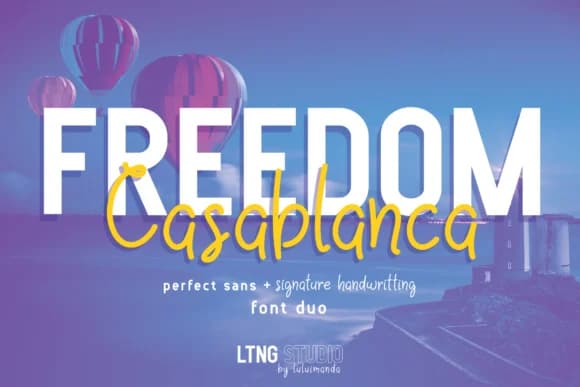
Freedom Casablanca by LTNG is a handwritten script font that brings organic, flowing letterforms to any creative project. With multiple weights and styles including Regular, Bold, Italic, and Doodles options, this versatile typeface adapts seamlessly across different applications and design contexts. The family is designed to work as individual fonts while also creating beautiful combinations when layered together, giving designers flexibility in how they approach their work.
The font excels in wedding invitation suites where its natural hand-drawn aesthetic adds genuine elegance and romance. It works equally well for Etsy product labels and specialty packaging that need personality, charm, and the handmade quality that appeals to modern consumers seeking authentic touches. DIY craft signage and personalized gifts benefit tremendously from its approachable warmth and character, while boutique skincare packaging and artisan product boxes gain sophistication through the Outline variation, which creates dimensional effects that capture attention on retail shelves. This script also shines for custom stationery, hand-lettered posters, and branding projects where individuality matters.
Freedom Casablanca's combination of accessibility and refinement makes it a reliable choice for designers working on projects where authentic, human-made character is the goal. Visit Creative Fabrica to add this expressive script family to your collection.
Freedom Casablanca Font is a script font that shines as a display or heading face. Pair it with a clean sans-serif or serif font for body text β the contrast creates a clear hierarchy while the two styles stay balanced and easy to read.
Freedom Casablanca Font
by LTNG